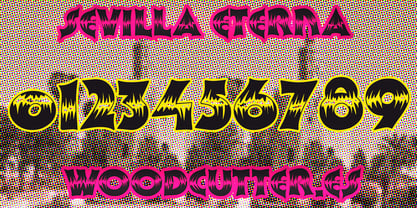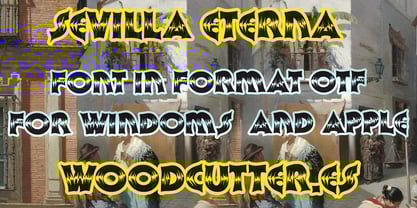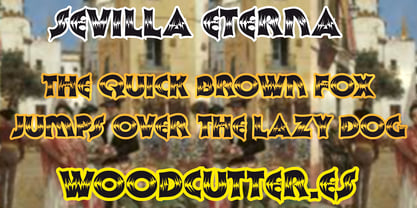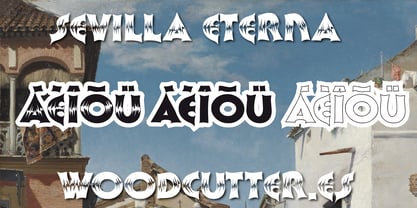
Sevilla Eterna
by Woodcutter
The Sevilla Eterna Font Family was designed by Jordi Manero and published by Woodcutter. Sevilla Eterna contains 3 styles and family package options.
Sevilla Eterna is an all-caps typeface with accents that captures the vibrant and retro spirit of the 1970s. Its decorative and nostalgic style evokes the elegance of vintage signage, pop advertising, and the colorful graphic design of that golden decade. With geometric shapes, wide curves, and unique detailing in each letter, this font brings a strong visual personality, making it perfect for posters, covers, packaging, or branding that demands a sophisticated vintage touch.
The Sevilla Eterna family consists of three versions, offering both versatility and rich visual variety:
Sevilla Eterna, featuring decorated letters with stylized details for an artistic and eye-catching look.
Sevilla Eterna Outline, showcasing the same structure in outline form, ideal for lighter designs or creative typographic pairings.
Sevilla Eterna Black, with bold, solid letters that enhance its visual impact and bring weight to any message.
All three styles maintain a cohesive retro aesthetic and are designed to complement each other across a wide range of graphic applications. Sevilla Eterna is a typeface that pays tribute to the past with strength and elegance—perfect for those who want to communicate with timeless character and unmistakable style.